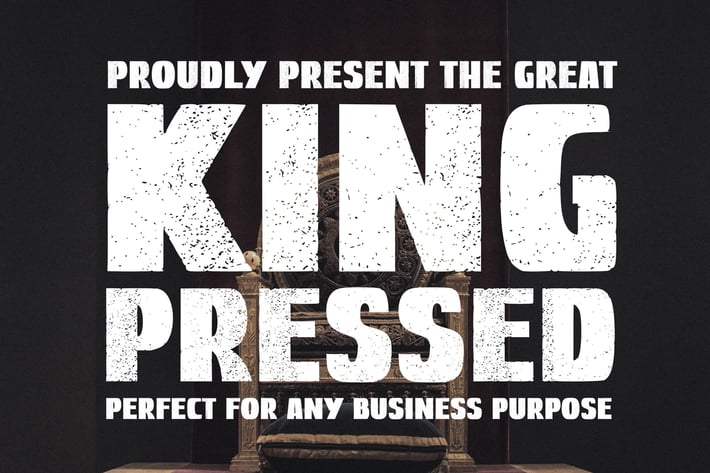
Great Kings Pressed Font
Great Kings Pressed is awesome and masculine font. Will perfect for many project: fashion, magazines, logo, branding, photography, quotes, blog header, poster, advertisements, postcard, book, websites, etc.